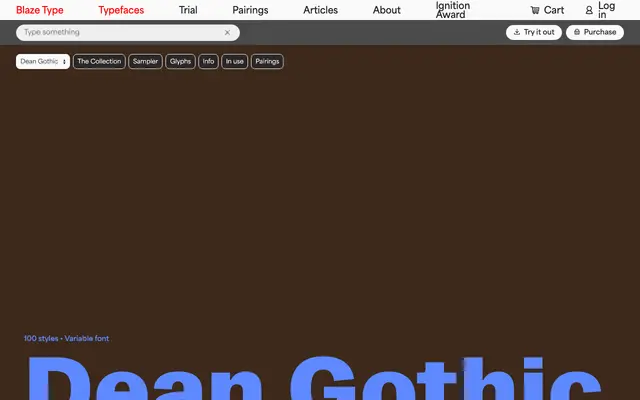
Dean Gothic specimen from Blaze Type
A large-scale grotesque family from Blaze Type spanning five widths and ten weights, available as a variable font across 100 styles.
Five width families — Compressed, Condensed, Normal, Extended and Wide — each running from Thin to Black with matching italics, giving 100 static styles in total alongside a variable font. The range from compressed display to wide setting in a single family makes it practical for brand systems that need typographic range without switching typefaces. No designer credit is listed on the page.
The name 'Gothic' and the broad weight range from Thin to Black across five width variants place this firmly in the grotesque sans-serif tradition, with no serif or slab elements visible in the specimen text.